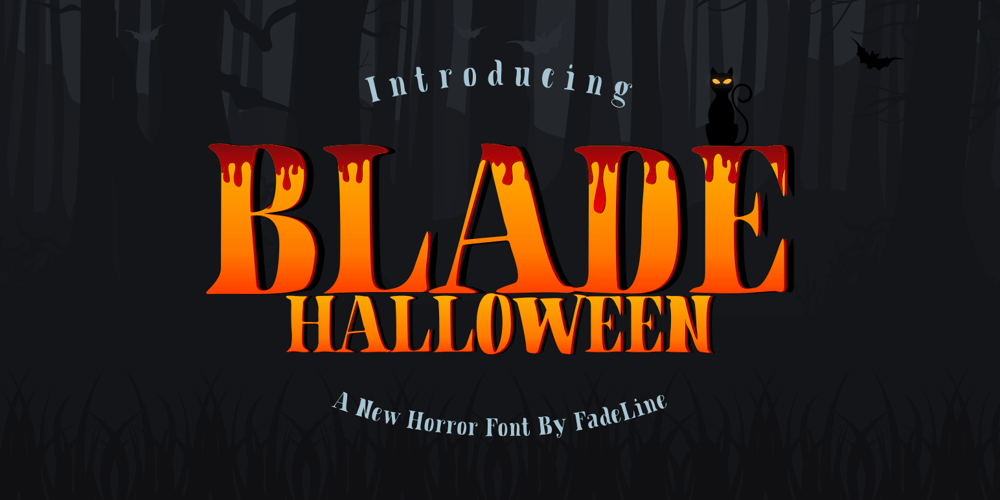
Blade Halloween
Blade Halloween font
Blade Halloween Font Family was designed by Juni Fadil Putra and published by FadeLine Studio. Blade Halloween contains 1 styles and family package options. Halloween soon arrives!!!Blade Halloween is a natural Serif style handwritten font. This font has sharp angles that gives it a horror look, but it still remains firm and attractive. Blade Halloween includes uppercase & lowercase characters, alternate glyphs, punctuation, numerals, and multilingual support.That way this font is perfect for meeting your Design and Branding needs in welcoming Halloween day!